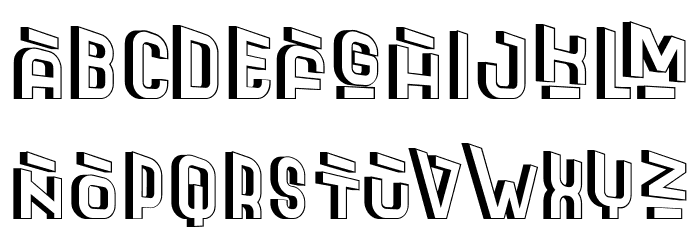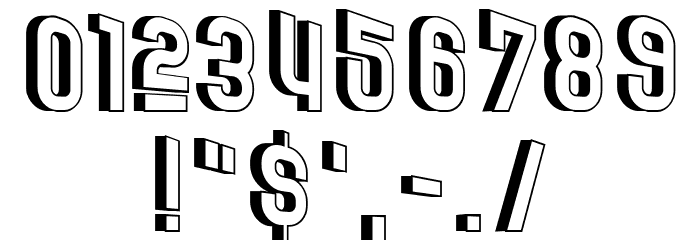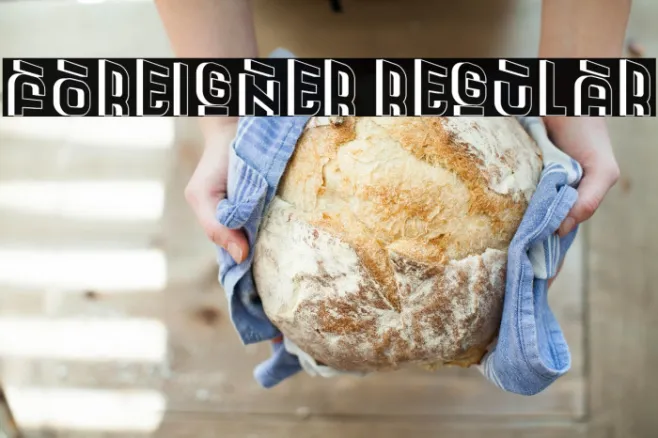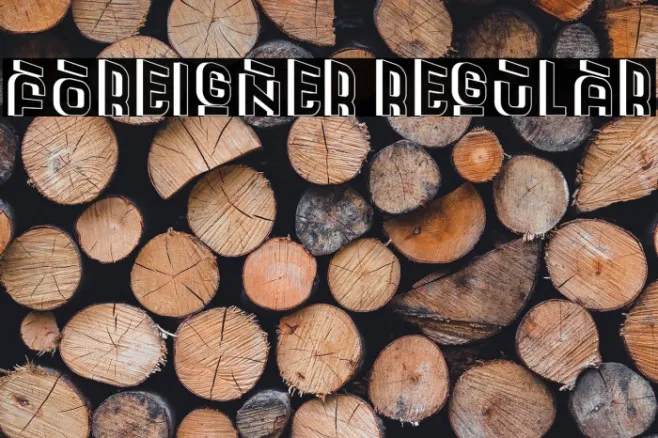
Foreigner Regular Font
This font features a bold, three-dimensional design with a distinct shadow effect that gives each character a sense of depth and structure. The uppercase letters are uniform in height and width, creating a cohesive and striking appearance. The numbers and special characters maintain the same bold and structured style, ensuring consistency across all elements. The font's geometric shapes and clean lines make it highly legible, even with its decorative elements. Its unique style is both modern and playful, making it suitable for a variety of creative applications.
A bold, three-dimensional font with a shadow effect and geometric design.
- Proposed Projects: Ideal for posters, headlines, logos, and any project requiring a bold, eye-catching typeface.